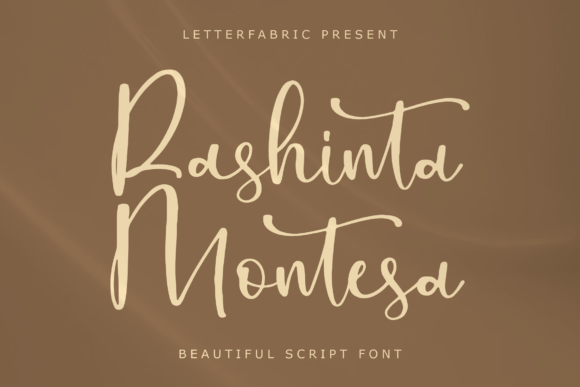
Welcome to the world of Rashinta Montesa, a masterpiece in the realm of script fonts. Each stroke, a delicate dance, weaves a story of elegance and grace. With its mesmerizing curves and captivating lines, Rashinta Montesa is not just a font; it's an experience.
Immerse yourself in the world of tattoos, where Rashinta Montesa shines like a guiding star. Its flowing, organic lines bring life to your words, making them dance on the skin like poetry. A font that captures the essence of self-expression, Rashinta Montesa transforms your ink into a symphony of emotions and individuality.
Beyond tattoos, Rashinta Montesa's versatility knows no bounds. Create logos that exude a touch of sophisticated charm or branding projects that whisper luxury and elegance. Use it to design homeware that feels like a warm embrace or product packaging that beckons with its allure.
With Rashinta Montesa, your creativity takes flight. Design mugs that carry your inspirational quotes or create posters that make a bold statement. Elevate your shopping bags, turning them into walking works of art, or transform t-shirts into canvases of personal style.
Books come alive with Rashinta Montesa's presence, each letter an invitation to delve deeper into the world of stories. Name cards, invitation cards, and greeting cards become more than mere pieces of paper; they become cherished keepsakes, carrying the weight of your heartfelt messages.
Unleash your inner artist with Rashinta Montesa. Design labels that add a touch of elegance to your products or create watermarks that whisper your brand's story. Special events come alive as Rashinta Montesa weaves its magic, transforming them into unforgettable memories.
Rashinta Montesa is more than just a font; it's a gateway to a world of creativity and expression. It's a tool that empowers you to turn your ideas into tangible works of art, leaving a lasting impression wherever it goes.